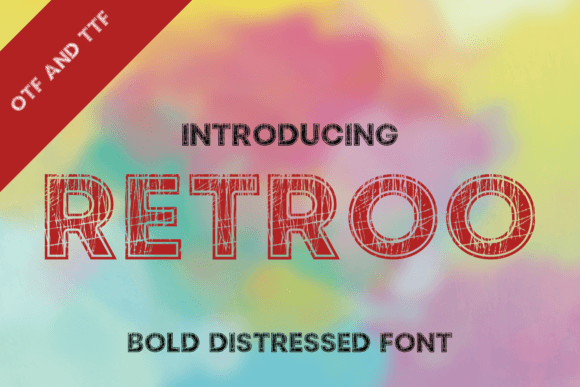
Unleash the power of expression with our groundbreaking Bold Distinctive Display Font, a typographic marvel that shatters the boundaries of creativity. This font is a testament to the fusion of rugged elegance and audacious distress, captivating attention and igniting the imagination. Its distinct, weathered texture and commanding presence make it the ultimate choice for designers seeking to make an indelible mark on their projects.
Picture this: headlines that leap off the page, branding that exudes authority, and posters that linger in the memory, all brought to life by the sheer brilliance of our Bold Distinctive Display Font. This font is your passport to a world of design possibilities, where boldness and impact reign supreme. Whether you're a seasoned designer or just starting your creative journey, this font will elevate your work to new heights of excellence.
Immerse yourself in the versatility of this remarkable font, effortlessly adapting to a myriad of design endeavors. From crafting logos that demand attention to crafting web designs that captivate, our Bold Distinctive Display Font is your trusted companion. Its innate strength and character shine through in every application, leaving an unforgettable impression on your audience.
But what truly sets our Bold Distinctive Display Font apart is its emotional resonance. It's a font that speaks to the heart, evoking a sense of nostalgia, grit, and determination. It's a font that empowers you to communicate not just words, but emotions, stories, and experiences.